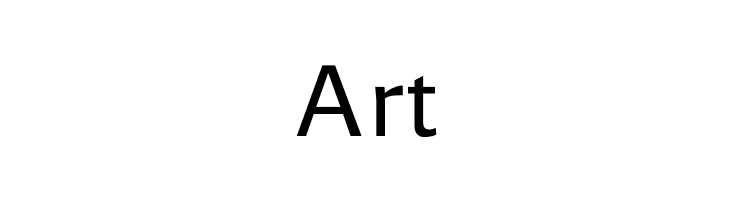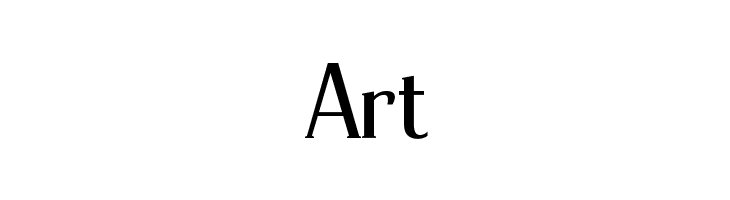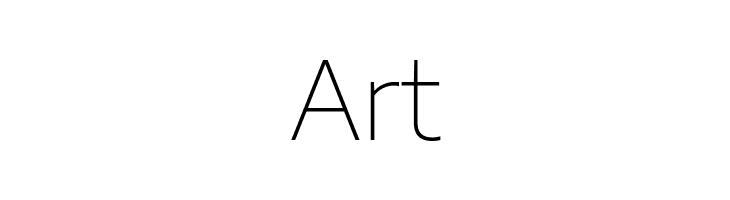
A modern, clean sans-serif font with excellent readability.
A bold, modern sans-serif font with geometric lines and high readability.
A modern, extra-condensed sans-serif typeface with medium weight and tight spacing.
A modern, thin sans-serif font with semi-expanded proportions and excellent readability.
A classic serif font with semi-bold weight and italic style, offering elegance and readability.
A modern, clean sans-serif font with excellent readability and balance.
A bold, modern sans-serif font with clean lines and excellent readability.
A modern, light sans-serif font with excellent readability and a clean design.
A clean, modern, and condensed typeface with excellent readability.